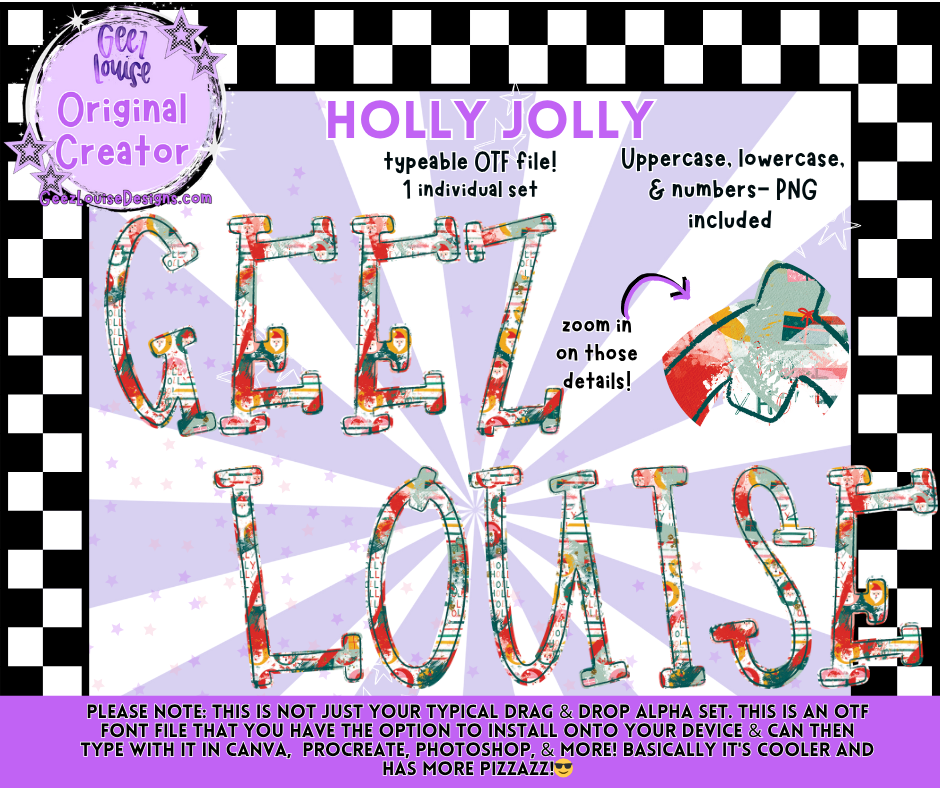
Holly Jolly Alpha | OTF Font + PNG Letter Set
Get festive with the Holly Jolly Alpha!
This playful, Christmas-inspired alpha bursts with bright holiday colors, whimsical textures, and a cheerful grunge twist — the perfect blend of merry and messy for your seasonal designs. Whether you’re crafting apparel, mugs, or digital artwork, this alpha will make your projects pop with holiday spirit.
This isn’t just a drag-and-drop alpha — it’s a fully typeable OTF font that lets you instantly type out your designs in festive Holly Jolly style!